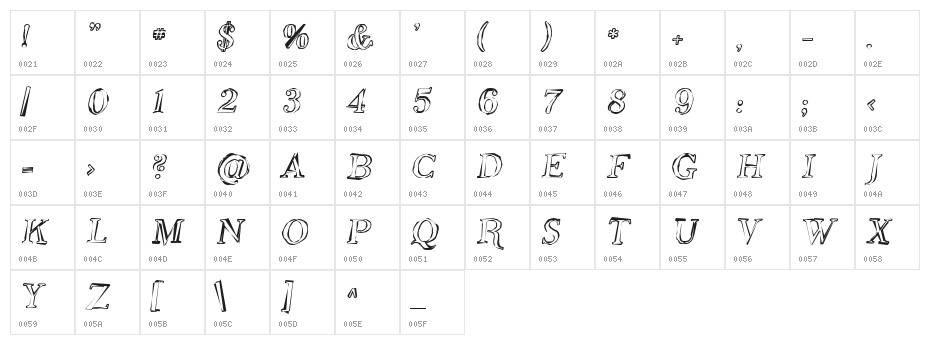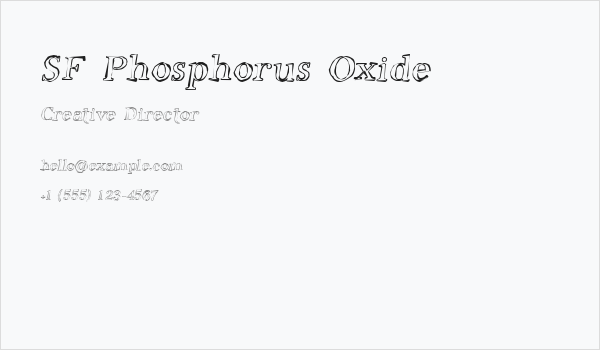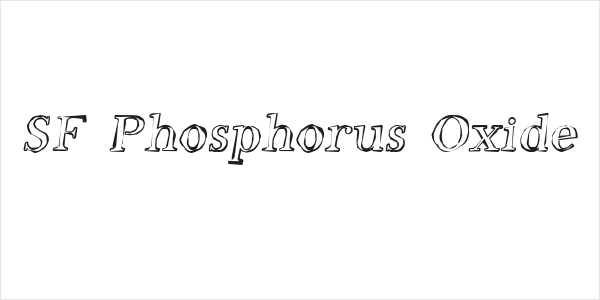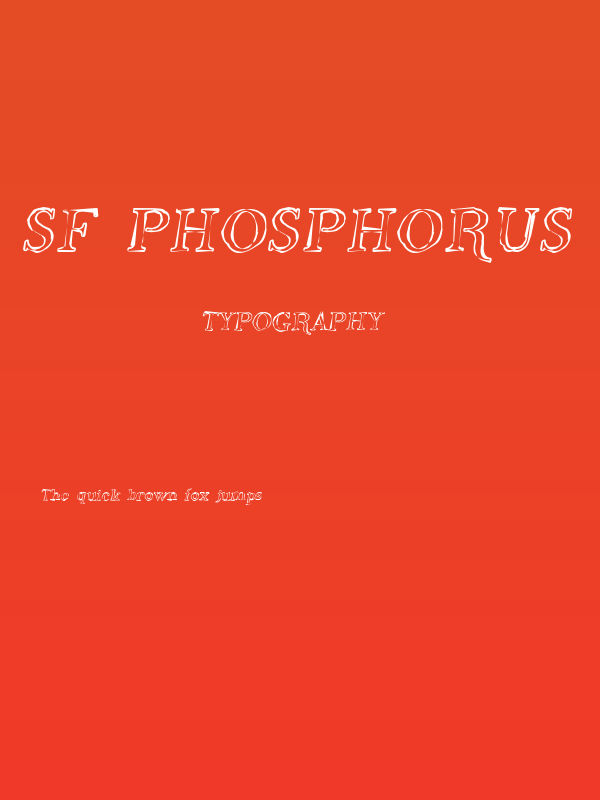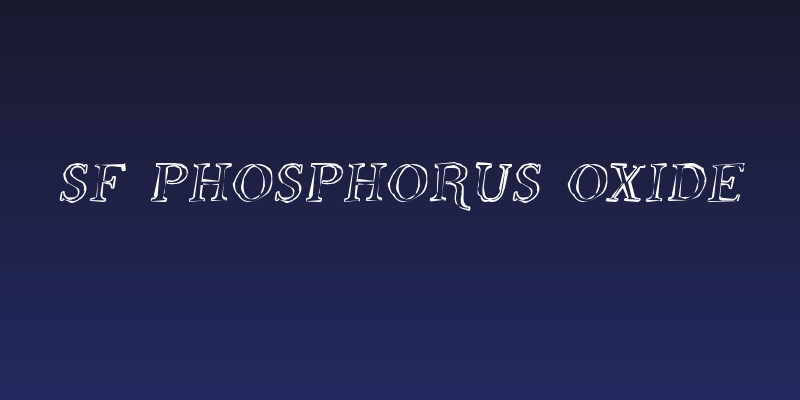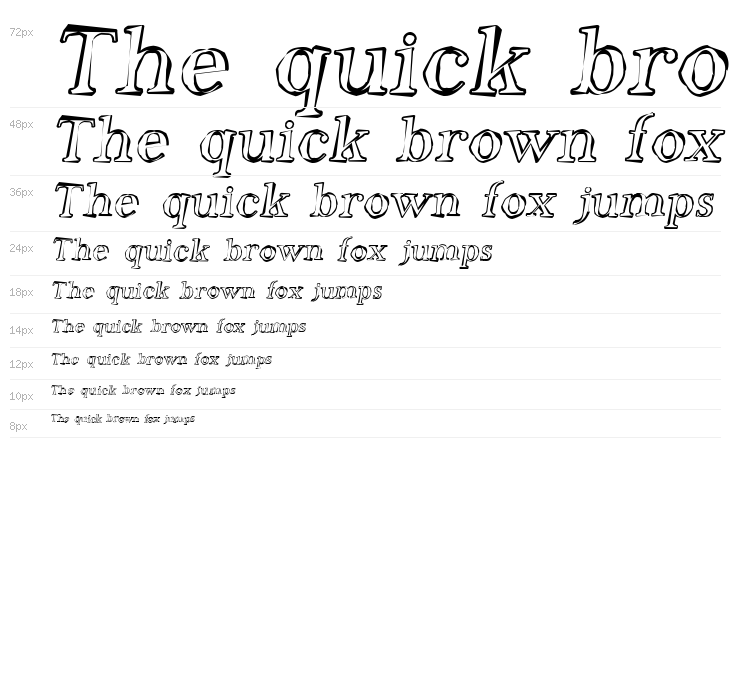
SF Phosphorus Oxide Font
SF Phosphorus Oxide Description
This font features a unique blend of modern and vintage styles, characterized by its bold, outlined letters with a slight shadow effect that adds depth and dimension. The uppercase letters are strong and commanding, while the lowercase letters maintain a consistent style, offering a harmonious balance. The numerals are distinct and easy to read, complementing the overall design. Special characters are creatively designed, maintaining the font's distinctive style. This font's artistic flair makes it suitable for eye-catching designs.
| Overall Style | Modern Vintage |
| Proposed Projects | Ideal for branding, poster design, album covers, and any project requiring a bold, artistic touch. |